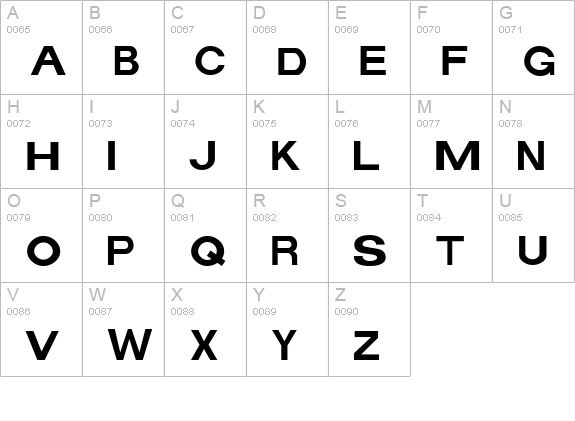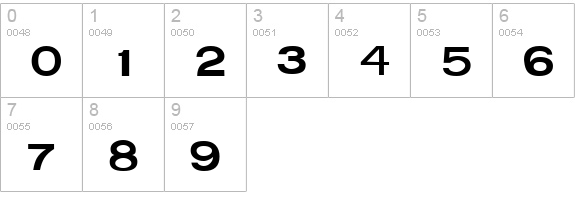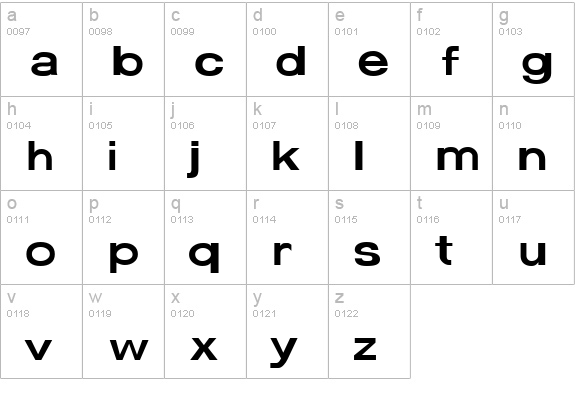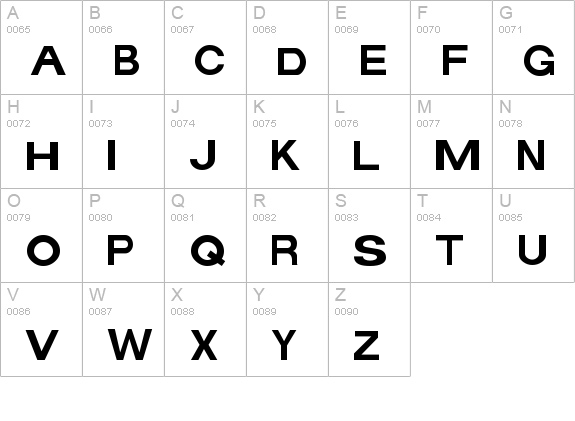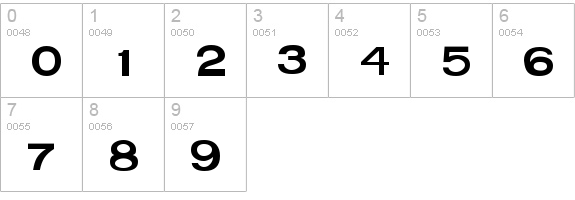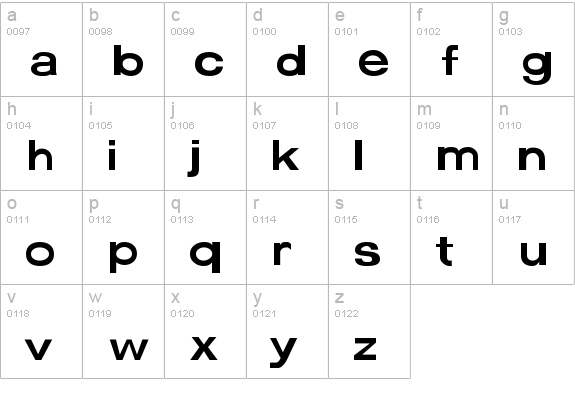
CheapSignage Standard is a versatile and eye-catching font that is perfect for all your signage needs. With its clean and modern design, this font is sure to grab attention and effectively convey your message. What sets CheapSignage Standard apart is not only its high-quality design, but also the fact that it is absolutely free. Yes, you read that right - this amazing font is freely available to download at FontsMarket.com. You can now enhance your signage projects without spending a dime. Whether you are creating banners, posters, or any other type of signage, CheapSignage Standard is the ideal choice. Its bold and legible letterforms ensure that your message will be easily readable from a distance, making it perfect for both indoor and outdoor applications. The versatility of CheapSignage Standard knows no bounds. It is suitable for a wide range of industries, including retail, hospitality, events, and more. Its clean lines and balanced proportions make it a timeless choice that will never go out of style. With CheapSignage Standard, you can add a touch of professionalism and sophistication to your signage projects, without breaking the bank. So why wait? Download this incredible font for free at FontsMarket.com and start creating stunning signage that will captivate your audience.